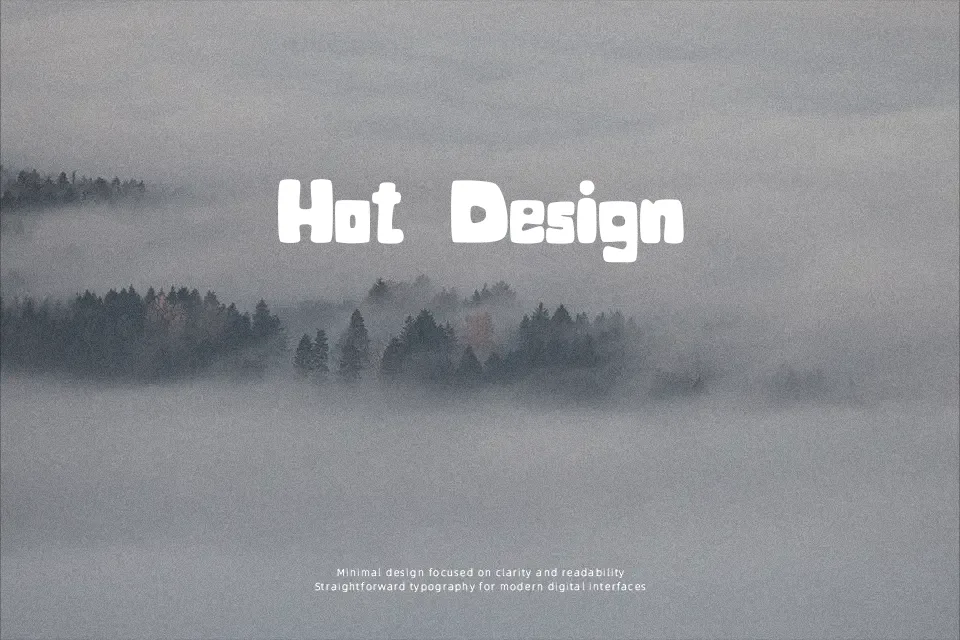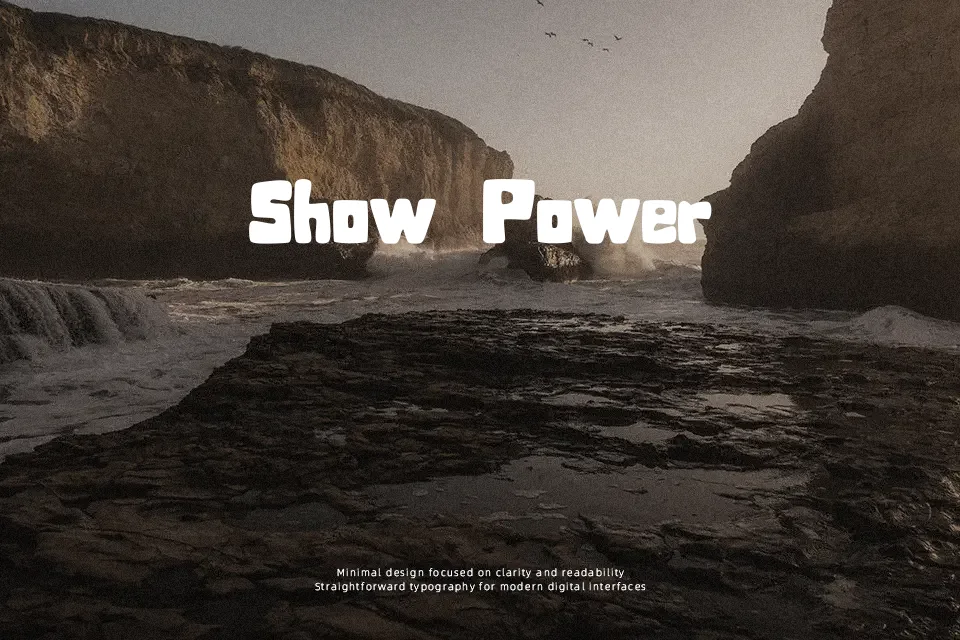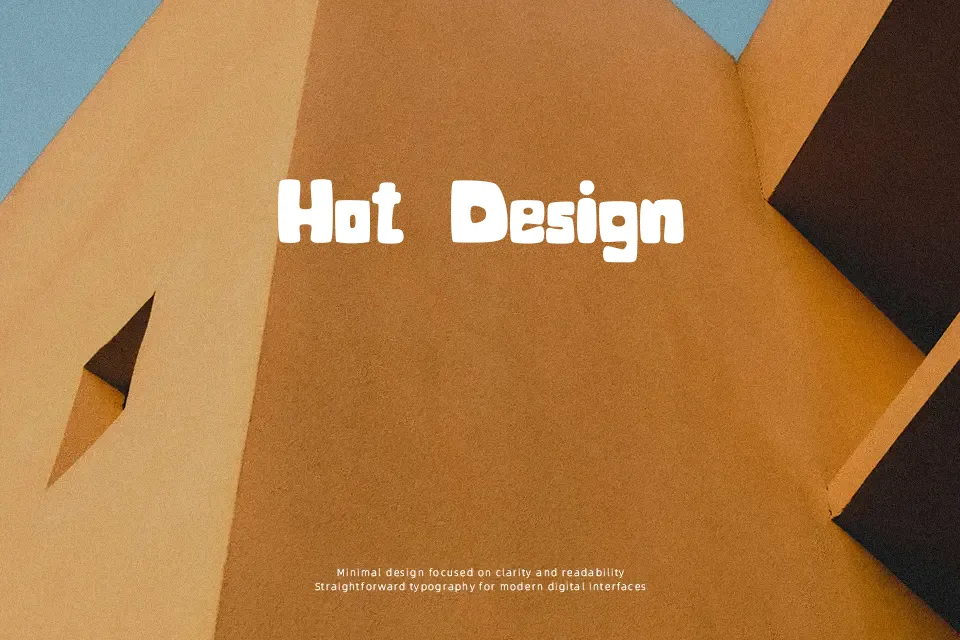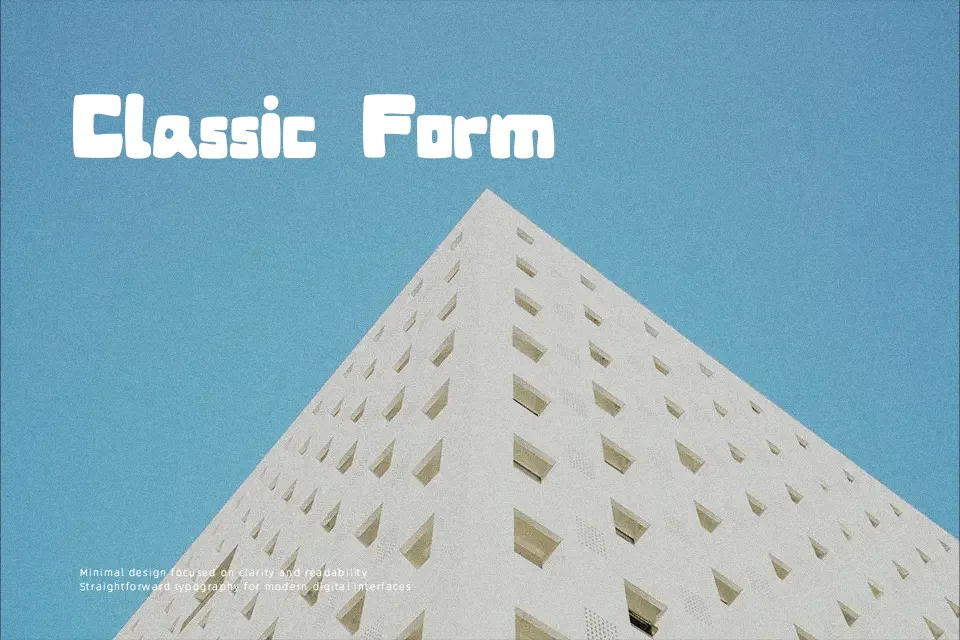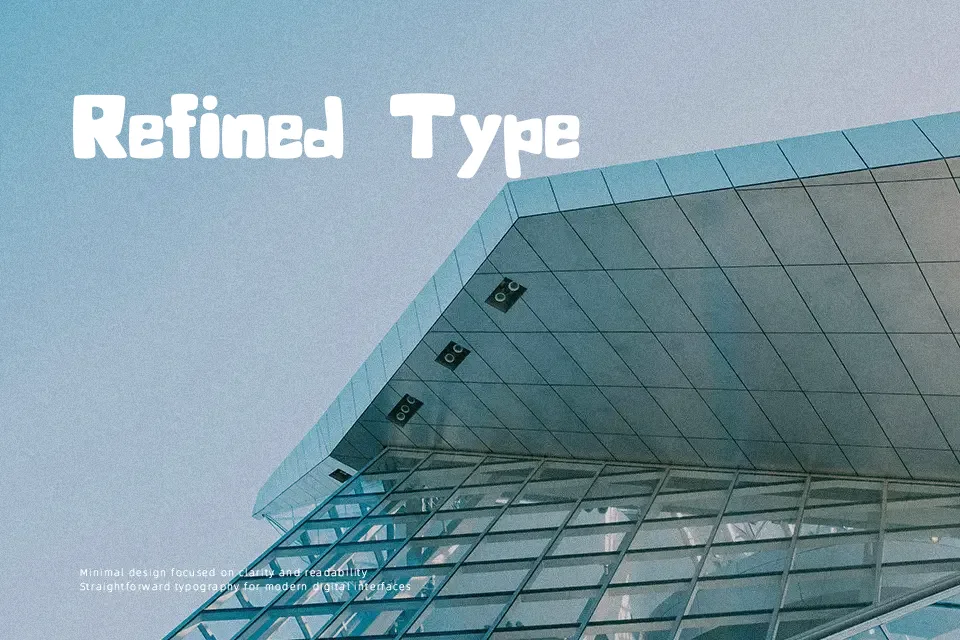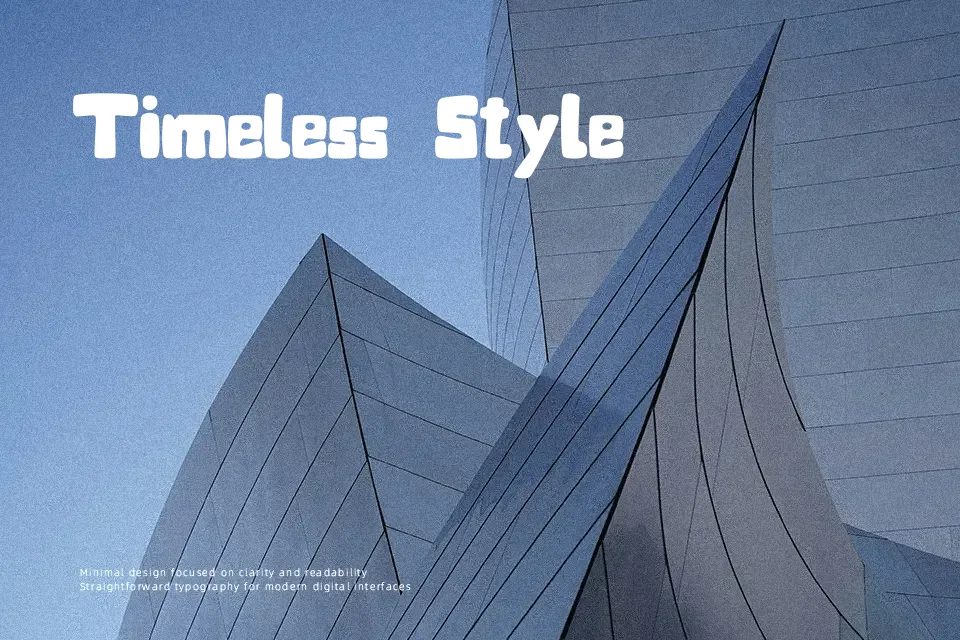
BubbleBaZ Font
BubbleBaZ is a rounded cartoon display typeface with thick strokes, soft corners, and tight, compact letterforms that stack nicely in short headlines. The shapes feel like inflated bubbles, so text reads as fun and a bit loud, not delicate or neutral. It shines on kids’ product packaging, playful event posters, or YouTube and Twitch graphics where you need a bold title that still feels approachable. For long paragraphs, UI labels, or serious brand identities, the exaggerated forms can quickly become tiring or look off-tone, so it works best paired with a simpler supporting font.
kids poster titles
gaming or streaming thumbnails
playful product packaging
social media graphics with bold headlines
body text or long reading content
serious corporate branding or reports
minimalist editorial layouts
small UI labels or dense interfaces
Perfect for gaming, kids, and logo, with a bold and cartoon style.